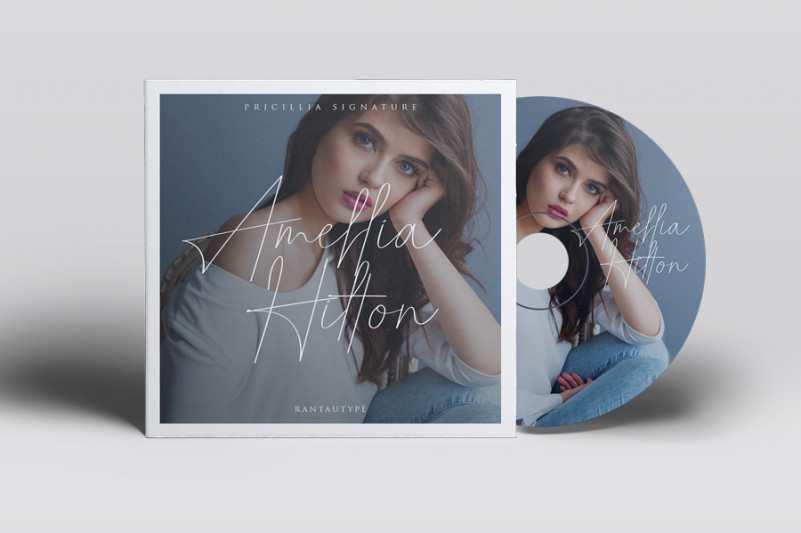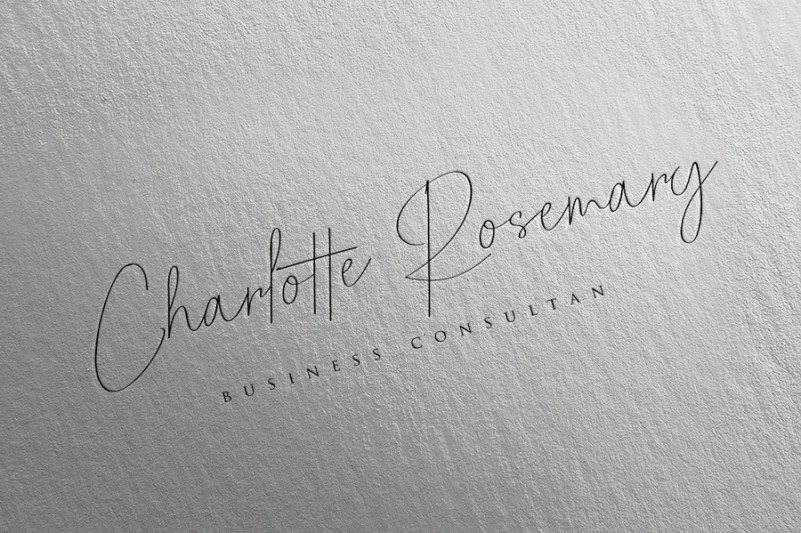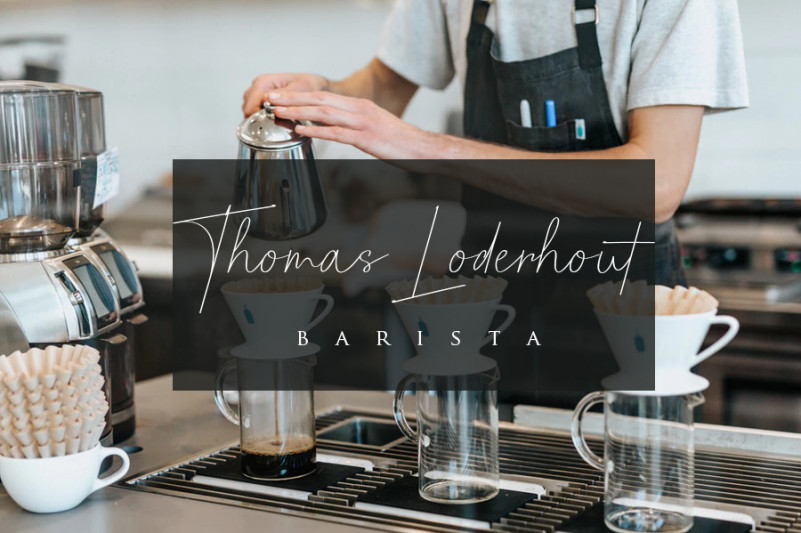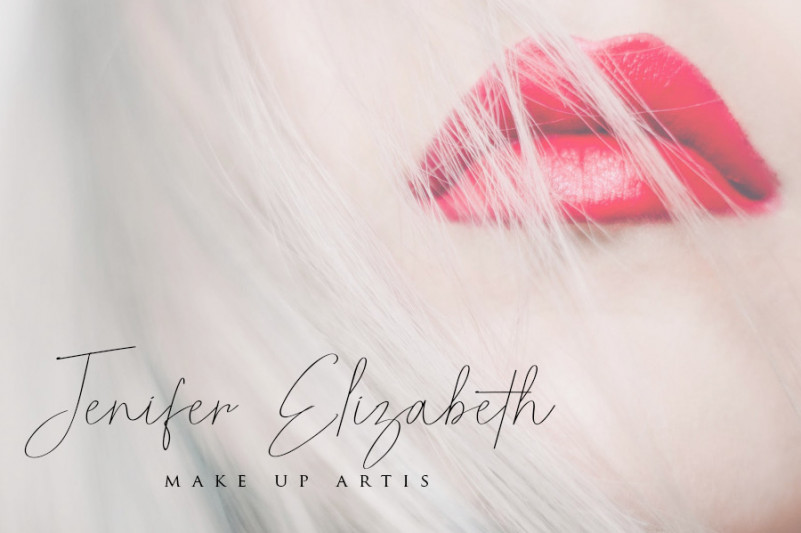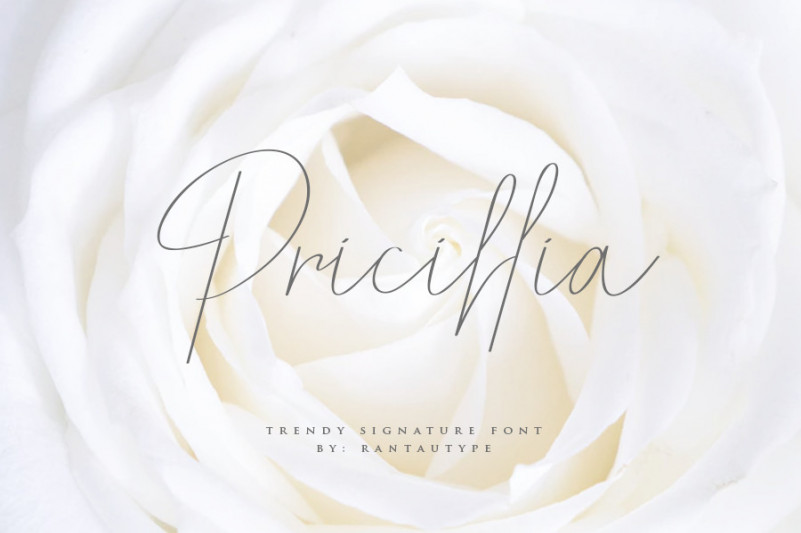
Pricillia Signature Font
Pricillia Signature Free Font
This is a classy signature typeface, it has an elegant style which can be used to add a natural touch to your designs. Introducing Pricillia Signature Font. This font take trendy of women with all their softness as inspiration and then make this font looks sophisticated classy. This font functions most strongly as a display or headline font. suitable for logo, logotype, branding, wedding, fashion, label, book cover, t-shirt, instagram post, and other